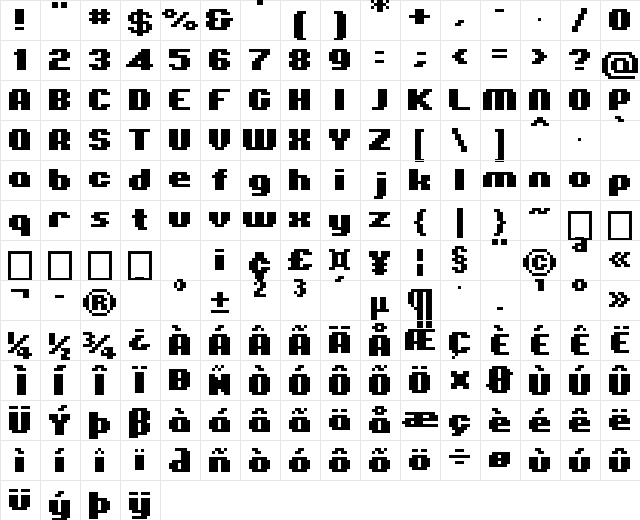
01EnergetixSmallRound Bold
Design Context for 01EnergetixSmallRound Typeface
01EnergetixSmallRound softens its letterforms with rounded terminals, giving it an approachable, friendly quality that works well in consumer-facing and digital contexts. Its bold stroke weight gives it real presence on the page.
Well-suited to UI design, mobile interfaces, and any brand that wants approachability without sacrificing clarity.
Font Pairing: Pairs well with a rounded or humanist sans for body copy, maintaining the friendly tone without relying on 01EnergetixSmallRound to carry extended reading.
Pro Tip: Use 01EnergetixSmallRound for UI elements, app interfaces, and anywhere a friendly, approachable tone needs to be maintained without sacrificing clarity.